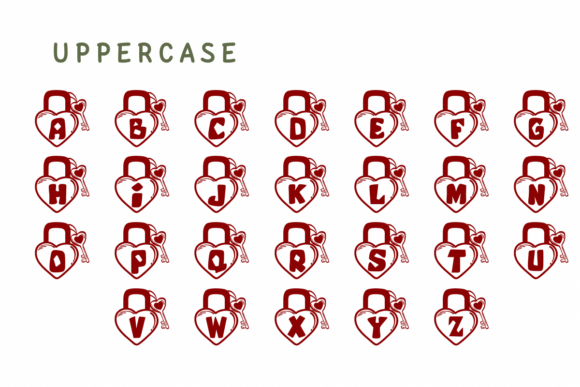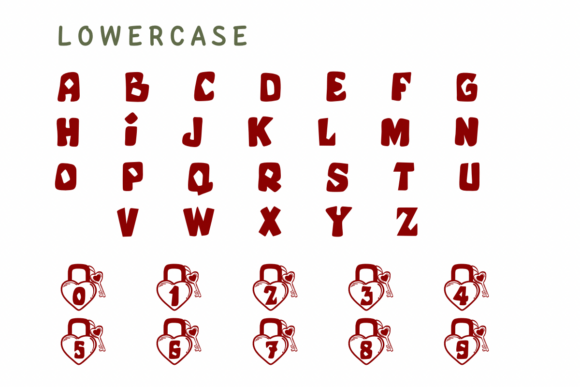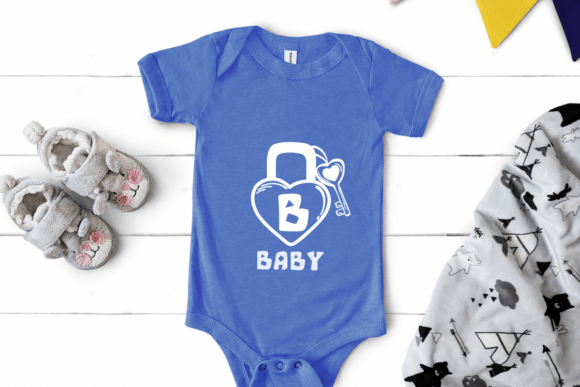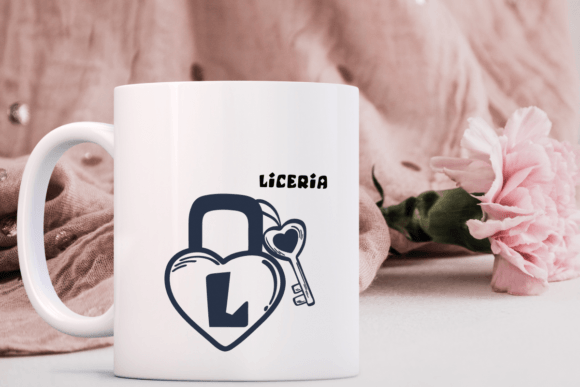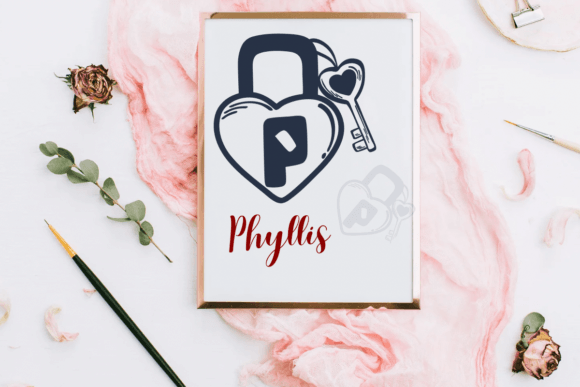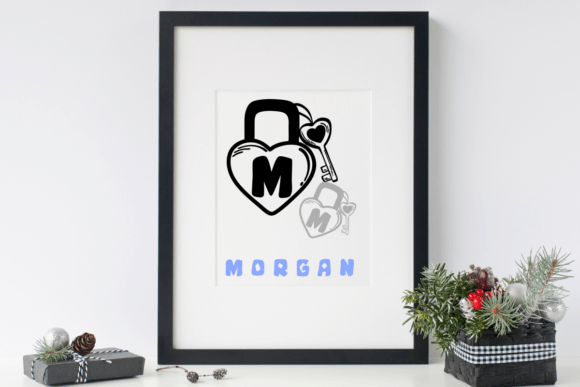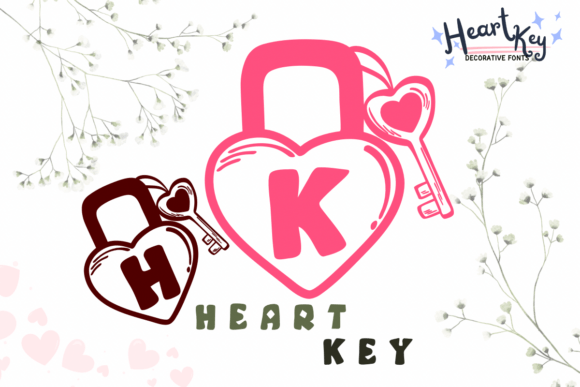
Introducing Heart Key Font: The Perfect Decorative Font for Designers and Crafters
Are you a designer or crafter looking for a unique and creative font to add a personal touch to your projects? Look no further than Heart Key Font! This beautiful decorative font is perfect for taking notes, writing a diary, or making greeting cards, and its versatility makes it suitable for a wide range of design applications.
What is Heart Key Font?
Heart Key Font is a decorative font designed to add a touch of elegance and whimsy to your designs. Its unique and intricate design makes it perfect for creating visually appealing projects that stand out from the crowd. Whether you’re a professional designer or a crafty hobbyist, Heart Key Font is sure to inspire your creativity.
Uses for Heart Key Font
Heart Key Font is incredibly versatile, and its uses are endless! Here are some ideas to get you started:
- Journaling and Note-taking: Add a personal touch to your journal or notes with Heart Key Font. It’s perfect for writing titles, headings, or even entire entries.
- Greeting Cards: Create beautiful and unique greeting cards for special occasions like birthdays, holidays, or weddings.
- Banners and Signs: Use Heart Key Font to create eye-catching banners and signs for parties, events, or promotions.
- Social Media Posts: Add a touch of personality to your social media posts with Heart Key Font. It’s perfect for creating engaging and shareable content.
- Mugs and Water Bottles: Design personalized mugs and water bottles with Heart Key Font for a unique and thoughtful gift.
- T-Shirts and Apparel: Create custom t-shirts, hoodies, or other apparel with Heart Key Font for a stylish and eye-catching design.
- Stationery and Invitations: Use Heart Key Font to create beautiful stationery, invitations, or thank-you cards.
Why Choose Heart Key Font?
So why choose Heart Key Font over other decorative fonts? Here are just a few reasons:
- Unique Design: Heart Key Font has a one-of-a-kind design that’s sure to make your projects stand out.
- Versatile: Heart Key Font can be used for a wide range of design applications, from digital projects to print materials.
- High-Quality: Heart Key Font is a high-quality font that’s designed to produce crisp and clear results.
Tips for Using Heart Key Font
Here are some tips for getting the most out of Heart Key Font:
- Experiment with Sizes and Colors: Don’t be afraid to experiment with different sizes and colors to find the perfect combination for your project.
- Pair with Other Fonts: Heart Key Font pairs well with other fonts, so don’t be afraid to mix and match to create a unique look.
- Use for Headings and Titles: Heart Key Font is perfect for headings and titles, so use it to add a touch of elegance to your projects.
- Have Fun!: Most importantly, have fun with Heart Key Font! Experiment with different designs and ideas to make your projects truly special.
Heart Key Font is a beautiful and versatile decorative font that’s perfect for designers and crafters. Its unique design and ease of use make it suitable for a wide range of design applications, from journaling and note-taking to banners and social media posts. Whether you’re a professional designer or a crafty hobbyist, Heart Key Font is sure to inspire your creativity and add a touch of elegance to your projects.